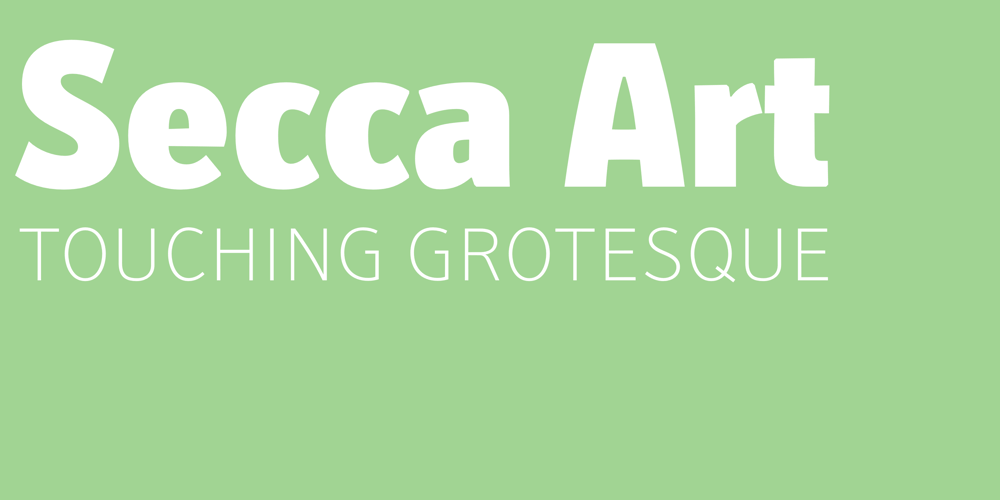
Secca Art Std Font Family was designed by Andreas Seidel and published by astype. Secca Art Std contains 11 styles and family package options. Secca Art recovers some of the expressive forms of early art nouveau and art deco grotesques — not copying it, but carefully adapting it for today. Secca Art is based on the Secca typeface family and is full interchangeable. Both are equal in weights, widths and word spacing, so you can decide to give your layout a more expressive or serious look. If you need Italic styles just use the Italics from Secca.